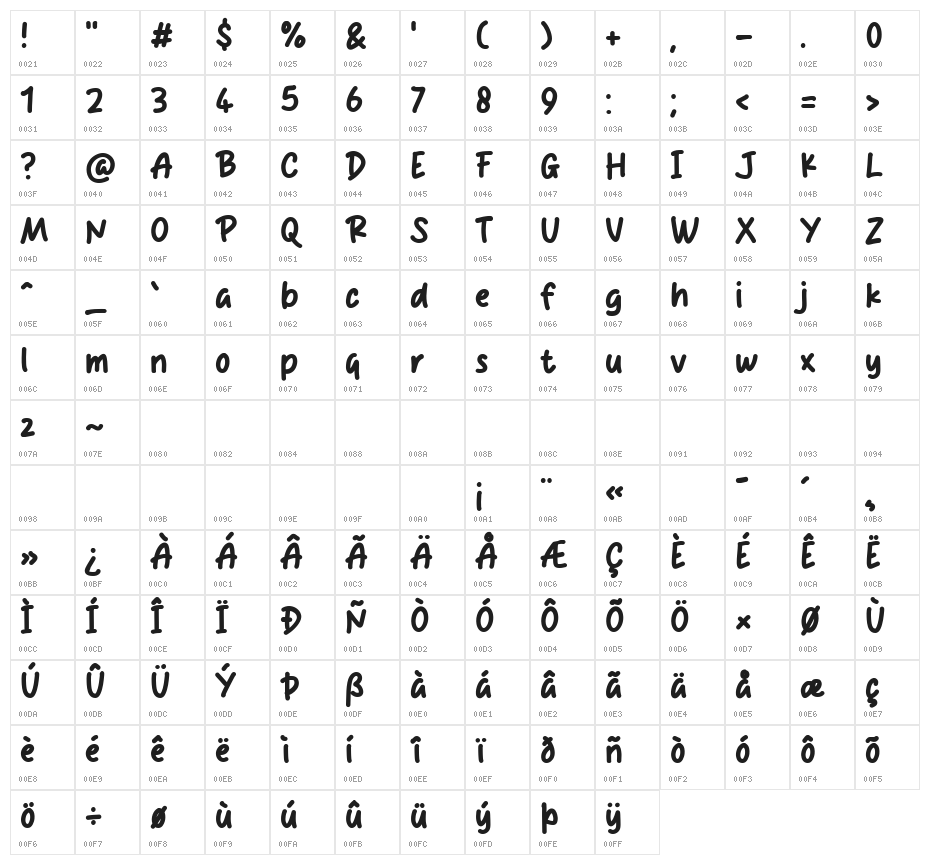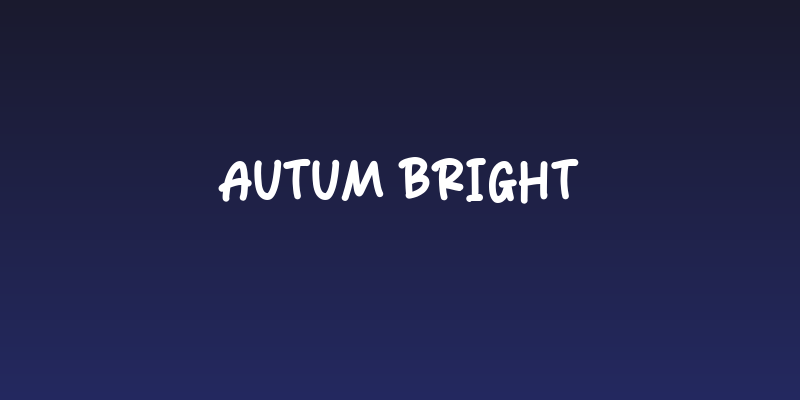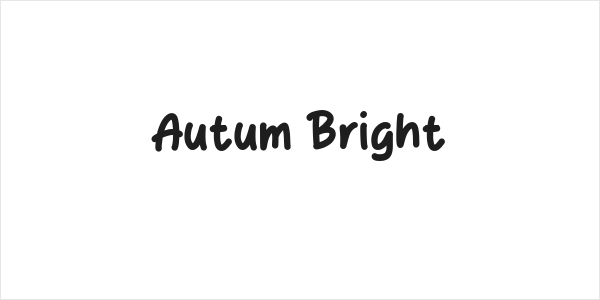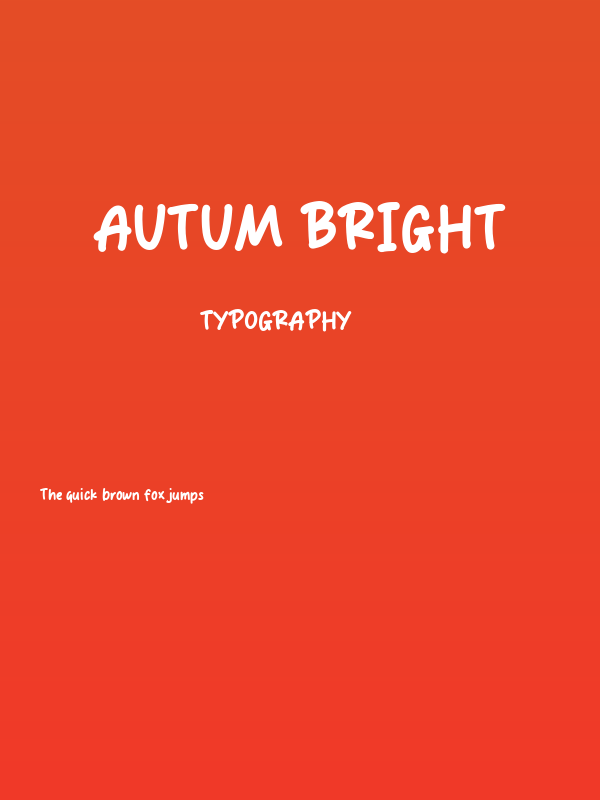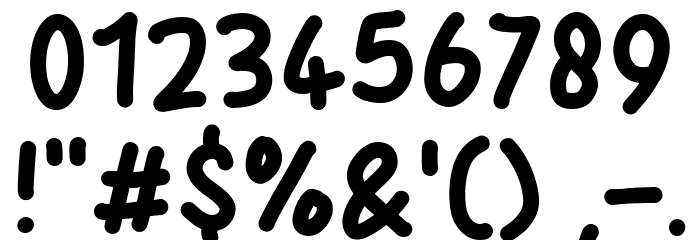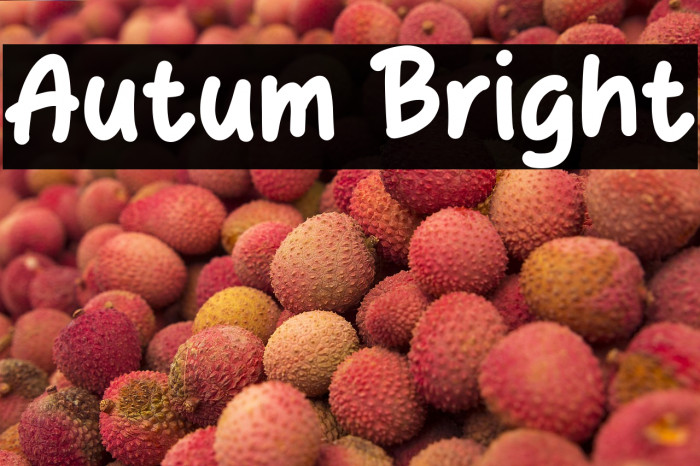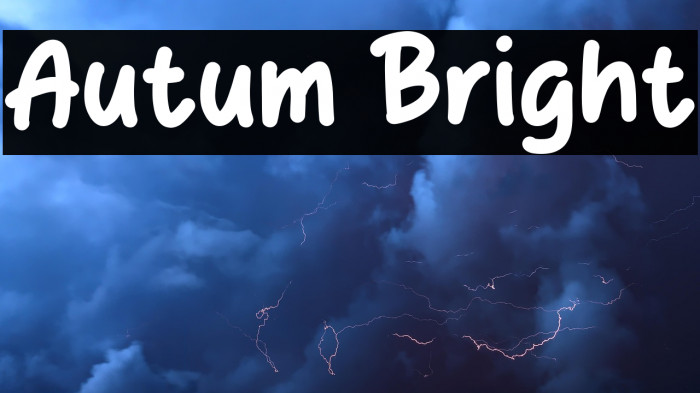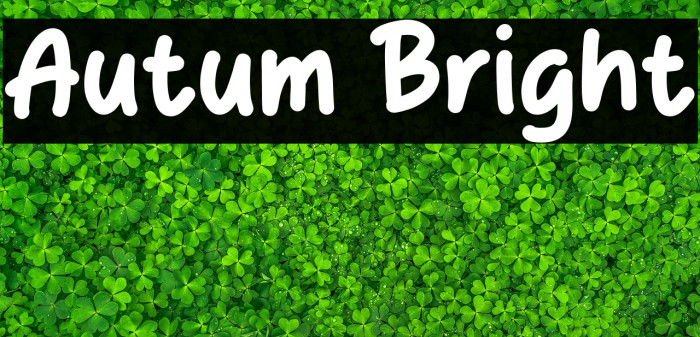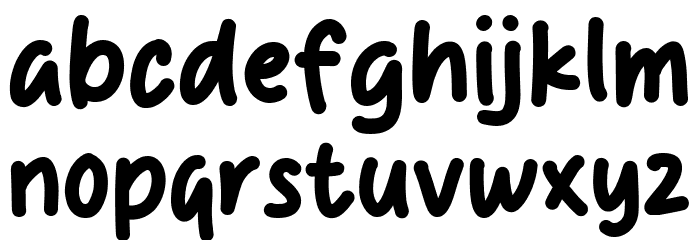
Autum Bright Font
Autum Bright Description
This font features a playful and casual handwritten style, characterized by its bold and rounded letterforms. The strokes are consistent in weight, giving it a uniform appearance that enhances readability. Its informal and friendly aesthetic makes it suitable for projects that aim to convey warmth and approachability. The letters are slightly slanted, adding a dynamic and lively touch to the text. The font includes a full set of uppercase and lowercase letters, numerals, and a variety of special characters, making it versatile for different design needs.
| Overall Style | Casual, Playful |
| Proposed Projects | Ideal for greeting cards, children's books, playful branding, and social media graphics. |